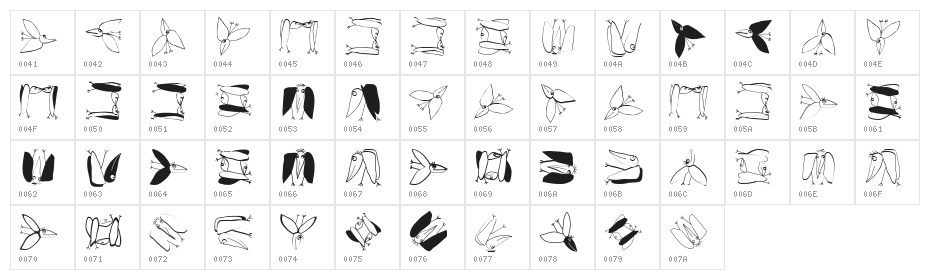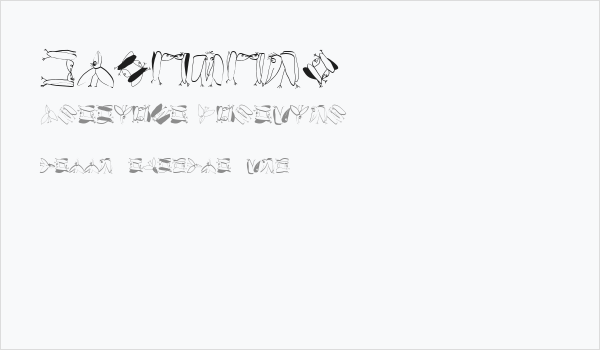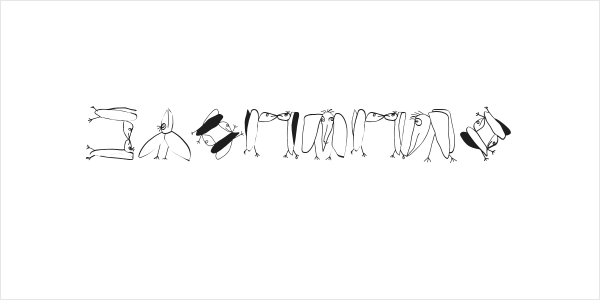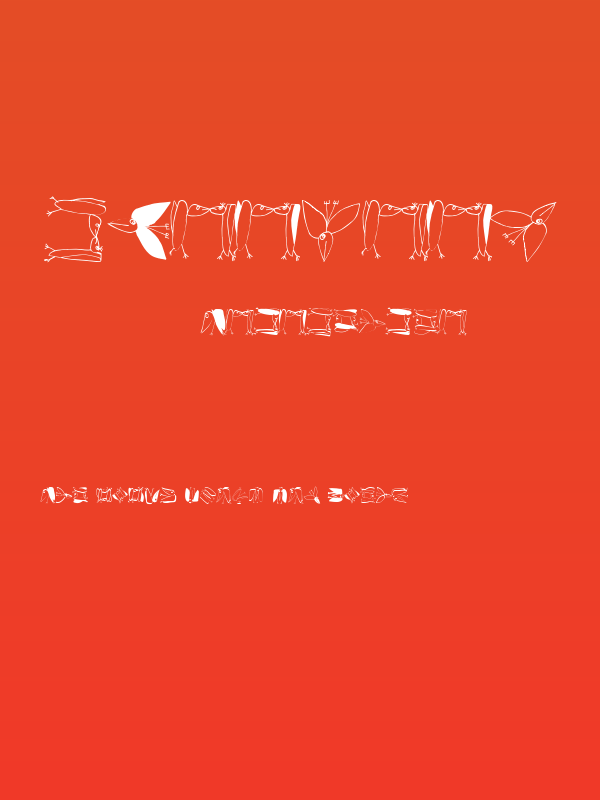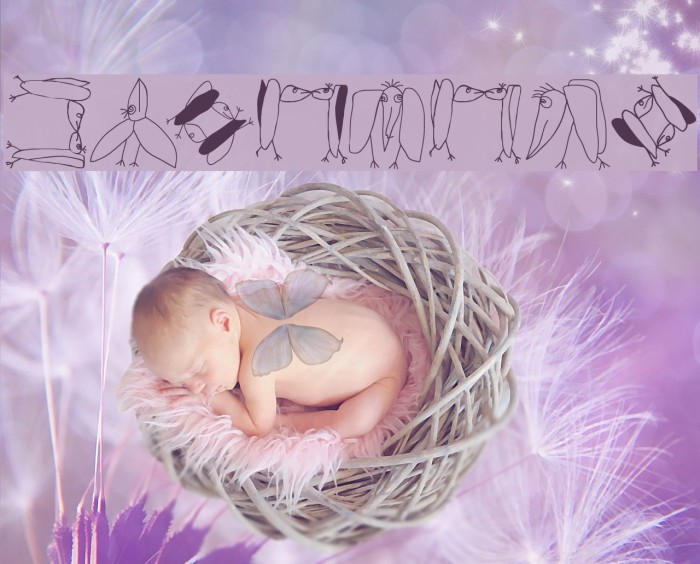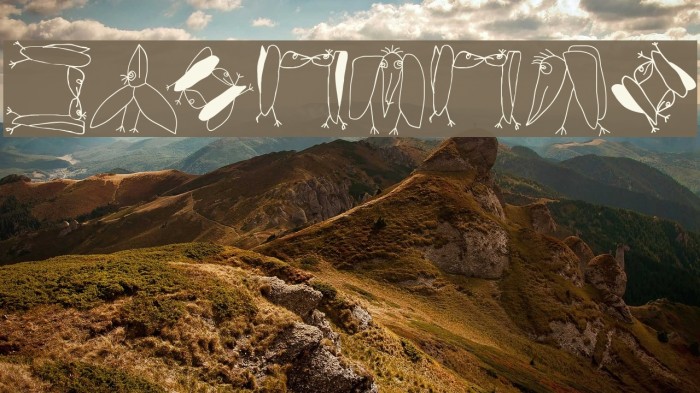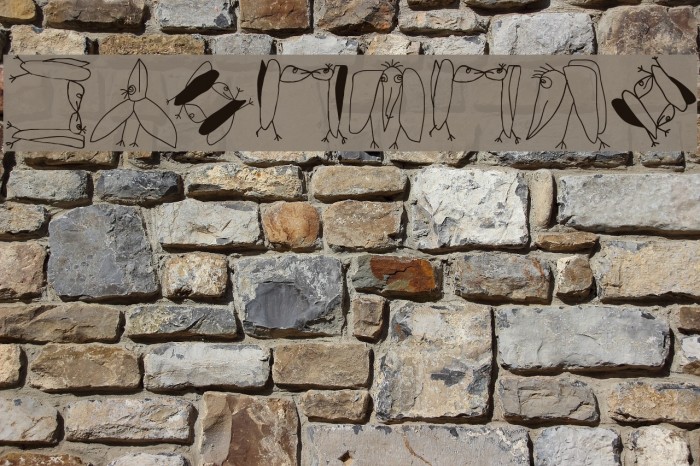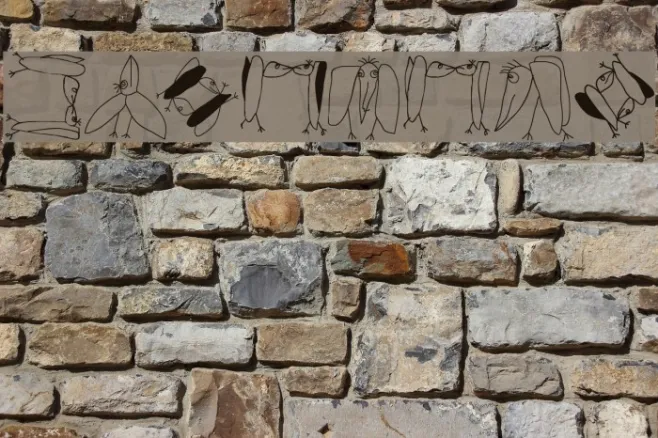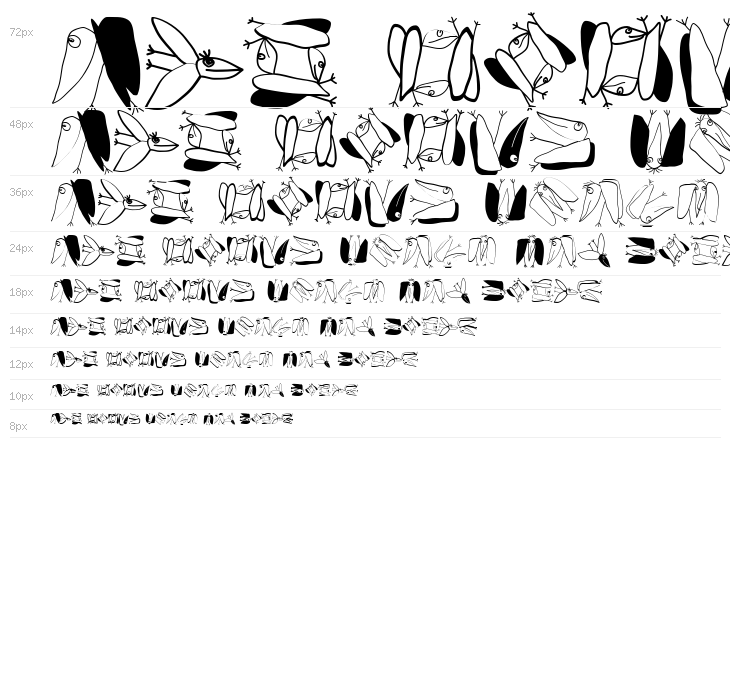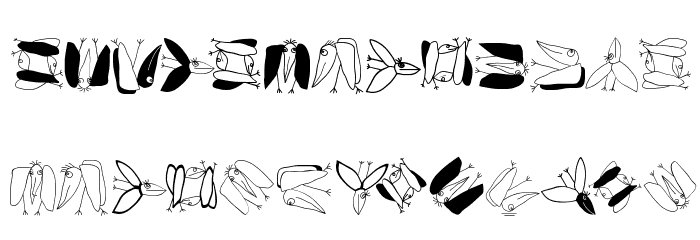
FlyOnYou Font
FlyOnYou Description
This font is a playful and whimsical design where each character is creatively formed using illustrations of flies. The letters are constructed with varying orientations and positions of the flies, giving a unique and artistic appearance. The design is highly decorative, making it stand out with its intricate details and imaginative concept. The font is not meant for traditional readability but rather for artistic expression and thematic projects. It captures attention with its novelty and is perfect for projects that require a fun and unconventional typeface.
| Use Case | Logos, Posters, Artistic Designs |
| Proposed Projects | Ideal for children's books, playful posters, themed event invitations, and artistic designs. |